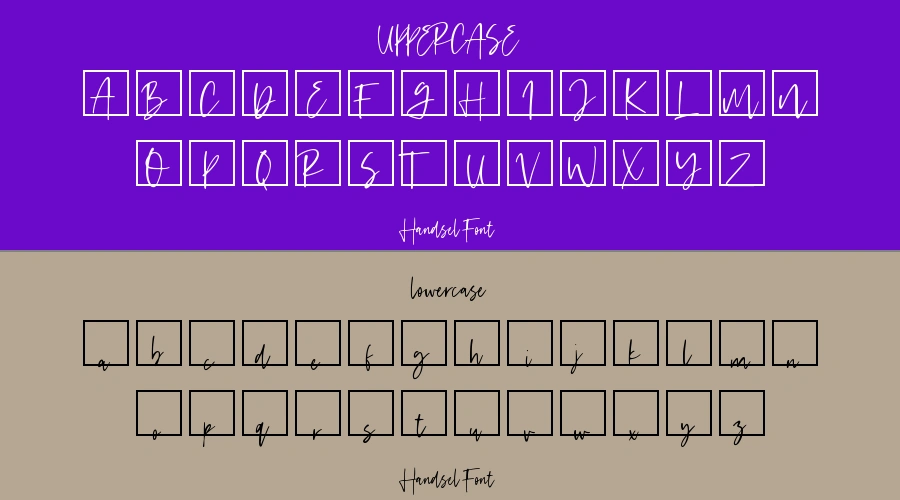
About Handsel Font
Handsel Font stands out for its distinctive combination of harmonious shapes and sophistication. Ideal for newspaper text, it provides the adaptability and technical excellence that professional projects demand. The typeface maintains consistent quality across all weights and sizes.
Key features include refined ball terminals and practical expert sets, enhancing typographic expression. In warning labels applications, Handsel Font demonstrates exceptional color consistency. The counter size and creative versatility contribute to its distinctive character and professional appeal.